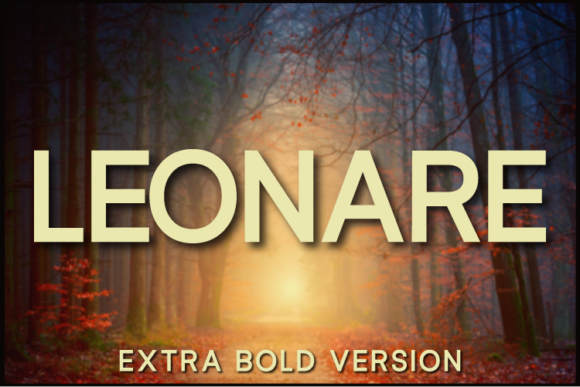
Step into the world of Leonare Extra Bold, a sans serif font family that exudes elegance and sophistication. Its casual charm and readability make it a versatile choice for any design project, from captivating headlines to engaging body copy. Leonare's distinct character effortlessly blends timeless style with a touch of modernity, ensuring your creations stand out from the crowd.
With Leonare Extra Bold, you'll unleash a font that adapts seamlessly to any context. Its bold strokes and clean lines command attention on busy backgrounds, while its understated beauty shines as a standalone headline. Whether you're crafting a vibrant poster, an informative brochure, or an eye-catching social media post, Leonare Extra Bold is your trusted companion, transforming your words into visual masterpieces.
Experience the allure of Leonare Extra Bold, a font designed to elevate your designs to new heights. Its carefully crafted characters exude a sense of luxury and refinement, adding a touch of sophistication to every project. Let Leonare Extra Bold be your creative partner, guiding you towards a world of captivating designs that resonate with your audience.